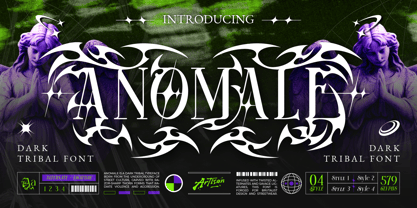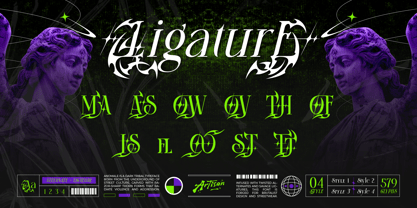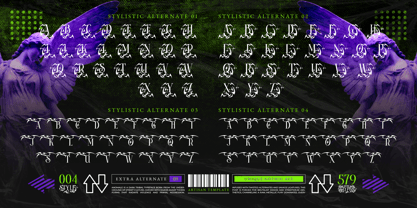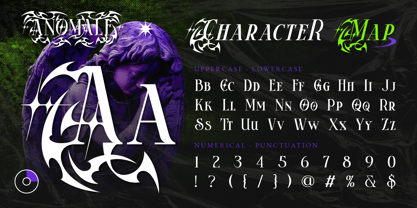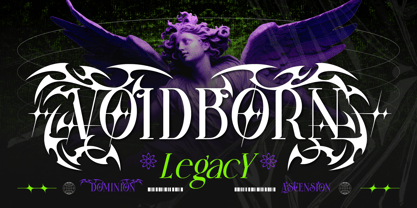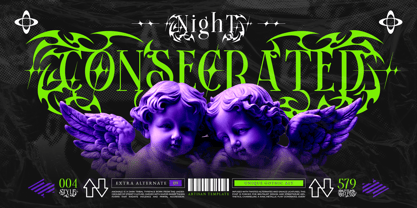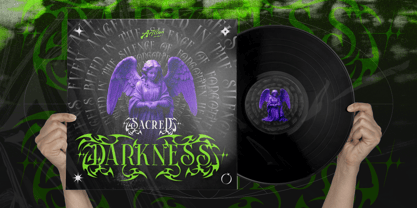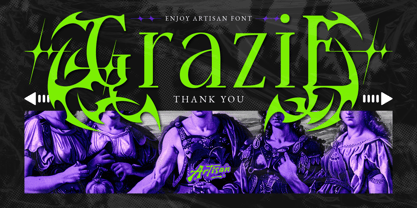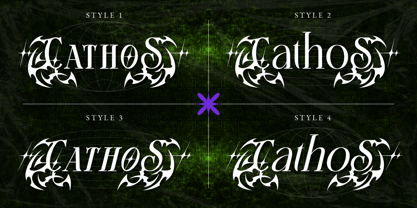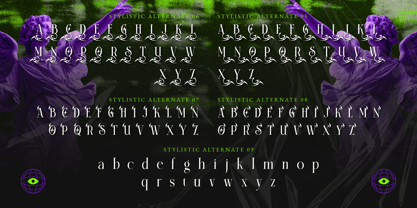
Anomale
by Artisan Themes
The Anomale Font Family was designed by Meidy Meichico and published by Artisan Themes. Anomale contains 4 styles and family package options. More about this family
Anomale is a dark tribal typeface inspired by ancient symbols, gothic rituals, and raw underground energy. Each letter is crafted with sharp curves and aggressive ornamental details, giving this font a mysterious, powerful, and slightly occult feel. Designed to stand out, Anomale features multiple stylistic alternates that allow you to create unique lettering styles—from bold tribal logos to dark gothic typography. This font is perfect for projects that need a strong visual impact and an edgy aesthetic. Anomale works beautifully for band logos, dark branding, album covers, tattoo designs, streetwear graphics, posters, game titles, fantasy themes, and any design that leans toward dark art and alternative culture. Features: A - Z set (Uppercase & Lowercase All Caps), Number, Punctuation, Alternates, Ligatures, Multilingual
Designers: Meidy Meichico
Foundry: Artisan Themes